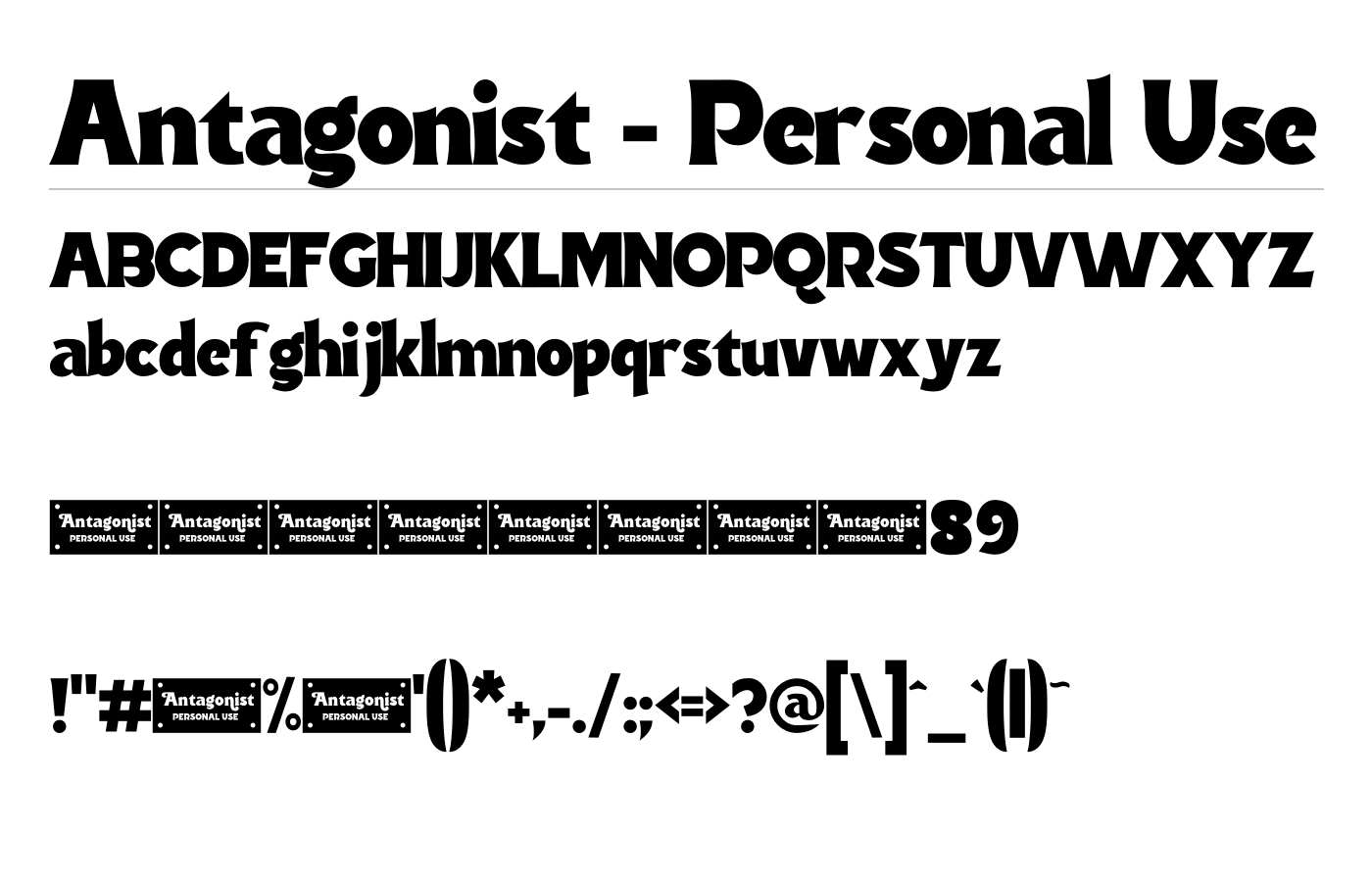
Antagonist is a bold and playful serif font with strong, thick strokes and unique, slightly irregular letterforms that give it a spirited personality. Its high contrast and pronounced serifs create a vintage yet dynamic feel, making it ideal for eye-catching headlines, logos, and creative design projects that need a distinctive and lively look. This font shines in settings where boldness and character are essential to grab attention and convey a fun, confident vibe.
Antagonist - Personal Use Font
About Antagonist - Personal Use Font